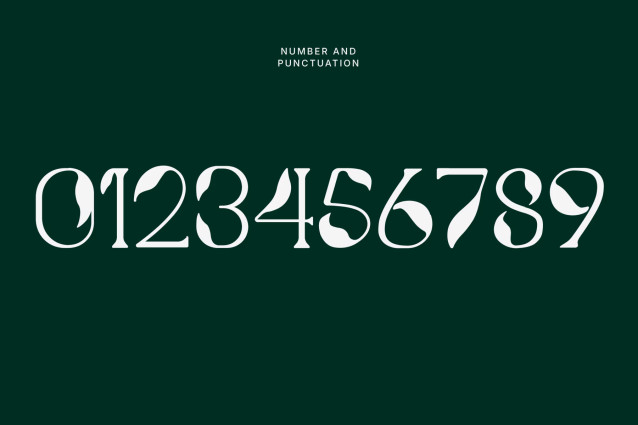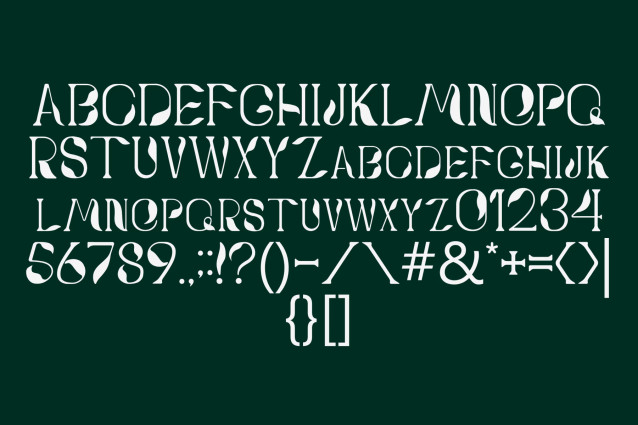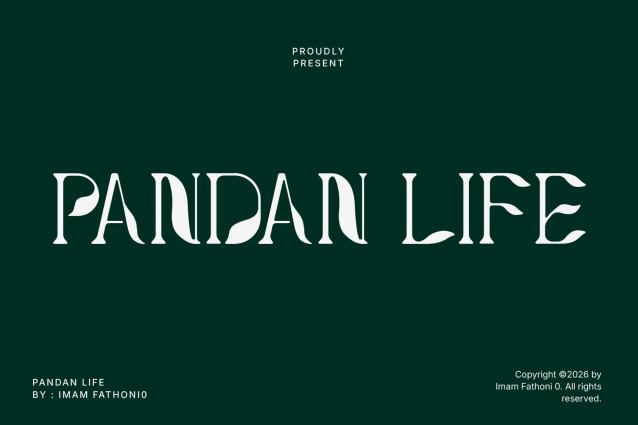
Pandan Life is an organic display font shaped by the graceful curl of pandan leaves, blending a natural, earthy character with clean readability. Its letterforms carry subtle leaf-like curves and tapered strokes, giving off a fresh, homey warmth that fits food and restaurant branding beautifully.
Perfect For
Restaurant and cafe branding, food packaging, menu design, culinary logos, organic and homemade product labels, bakery signage, kitchen decor, tropical-themed cuisine branding, wellness and herbal product packaging, social media headers for food businesses.